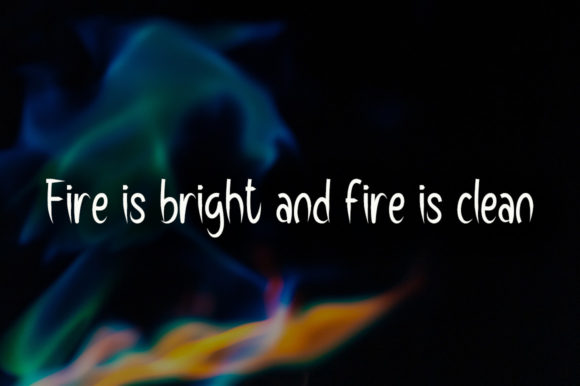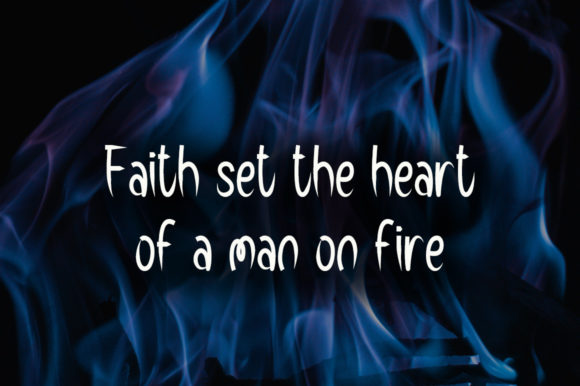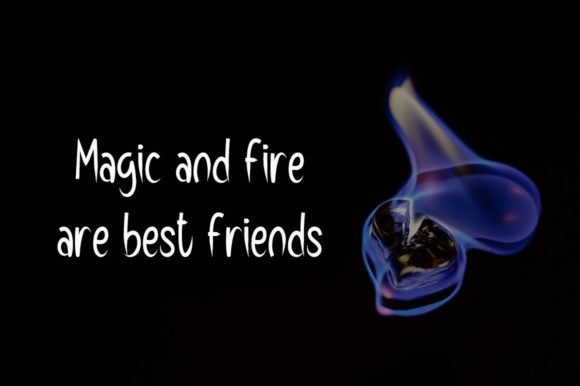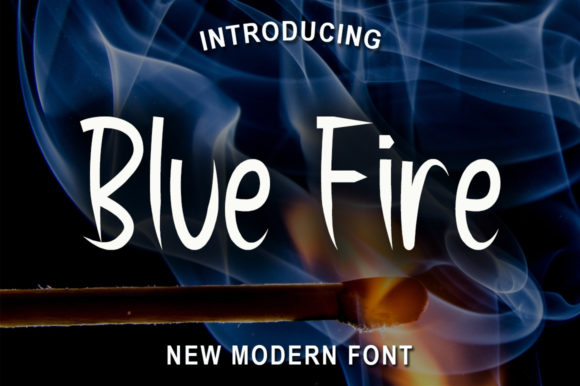
Unleash Your Creativity with Blue Fire Font: The Ultimate Display Font
Are you tired of using the same old fonts for your designs, crafts, and presentations? Look no further! Introducing Blue Fire Font, a cool and unique display font that’s perfect for adding a touch of excitement to your projects. In this article, we’ll dive into the world of Blue Fire Font and explore its features, uses, and benefits for designers and crafters.
What is Blue Fire Font?
Blue Fire Font is a modern, eye-catching display font that’s designed to make a statement. Its unique and stylish design makes it perfect for a wide range of applications, from digital designing and presentations to crafting and greeting cards making. Whether you’re a professional designer or a DIY enthusiast, Blue Fire Font is sure to add a spark to your creations.
Key Features of Blue Fire Font
- Unique and Stylish Design: Blue Fire Font boasts a one-of-a-kind design that’s sure to grab attention.
- Versatile: Use it for digital designing, presentations, crafting, greeting cards making, and more!
- Easy to Read: Despite its bold and stylized design, Blue Fire Font remains easy to read, making it perfect for headlines and titles.
- High-Quality: Blue Fire Font is a high-quality font that’s designed to deliver exceptional results.
Uses of Blue Fire Font
Blue Fire Font is an incredibly versatile font that can be used in a variety of applications. Here are some ideas to get you started:
- Digital Designing: Use Blue Fire Font to add a touch of excitement to your social media graphics, blog posts, and website headers.
- Presentations: Make your presentations stand out with Blue Fire Font’s bold and stylized design.
- Crafting: Add a personal touch to your craft projects, such as handmade cards, scrapbooking, and DIY decorations.
- Greeting Cards Making: Create stunning greeting cards for special occasions, such as birthdays, weddings, and holidays.
Benefits of Using Blue Fire Font
So, why choose Blue Fire Font for your design projects? Here are some benefits to consider:
- Adds Visual Interest: Blue Fire Font’s unique design adds visual interest to your projects, making them more engaging and attention-grabbing.
- Enhances Creativity: With Blue Fire Font, you can express your creativity and bring your ideas to life.
- Saves Time: Blue Fire Font is easy to use and integrate into your designs, saving you time and effort.
- Professional Results: Achieve professional-looking results with Blue Fire Font’s high-quality design.
Tips for Using Blue Fire Font
To get the most out of Blue Fire Font, here are some tips to keep in mind:
- Use it for Headlines and Titles: Blue Fire Font is perfect for headlines and titles, where its bold and stylized design can shine.
- Experiment with Colors: Try pairing Blue Fire Font with different colors to create stunning visual effects.
- Mix and Match with Other Fonts: Combine Blue Fire Font with other fonts to create a unique and visually appealing design.
| Font Name | Blue Fire Font |
| Author | morningtimestudio |
In conclusion, Blue Fire Font is a cool and unique display font that’s perfect for designers and crafters looking to add a touch of excitement to their projects. With its versatile design, ease of use, and high-quality features, Blue Fire Font is sure to become a go-to font in your design arsenal. So why wait? Download Blue Fire Font today and unleash your creativity!